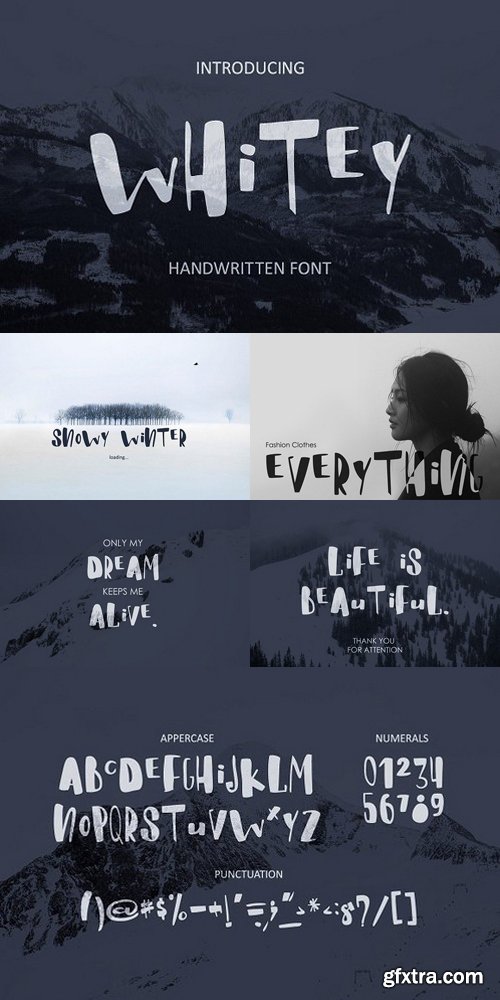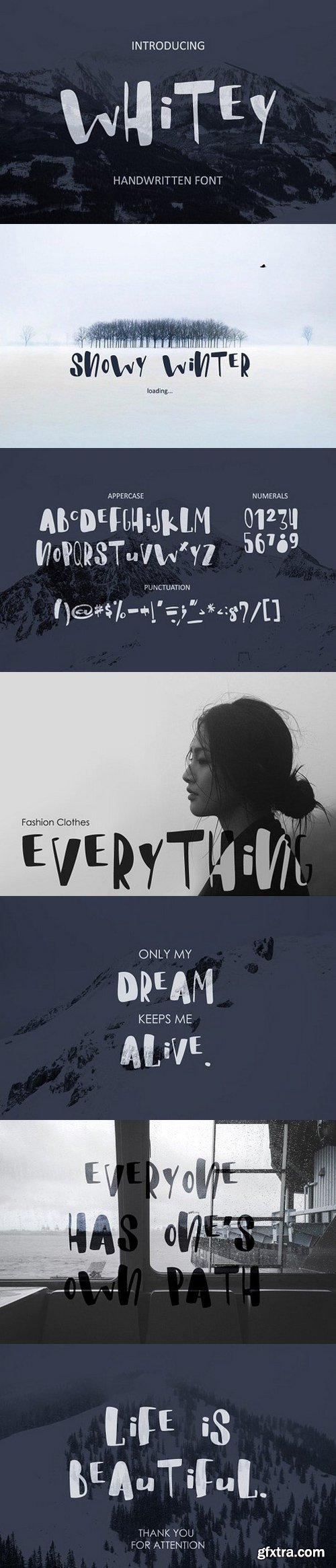
I want to present you my new handwritten brush font "WHITEY". This script combines the mild fun with the captivating mystery. This is a great decoration element for your belongings, interior, pillows, shirts, posters, prints, weddings, apparel, packaging, invites, etc. Also you can place these phrases to your photos.